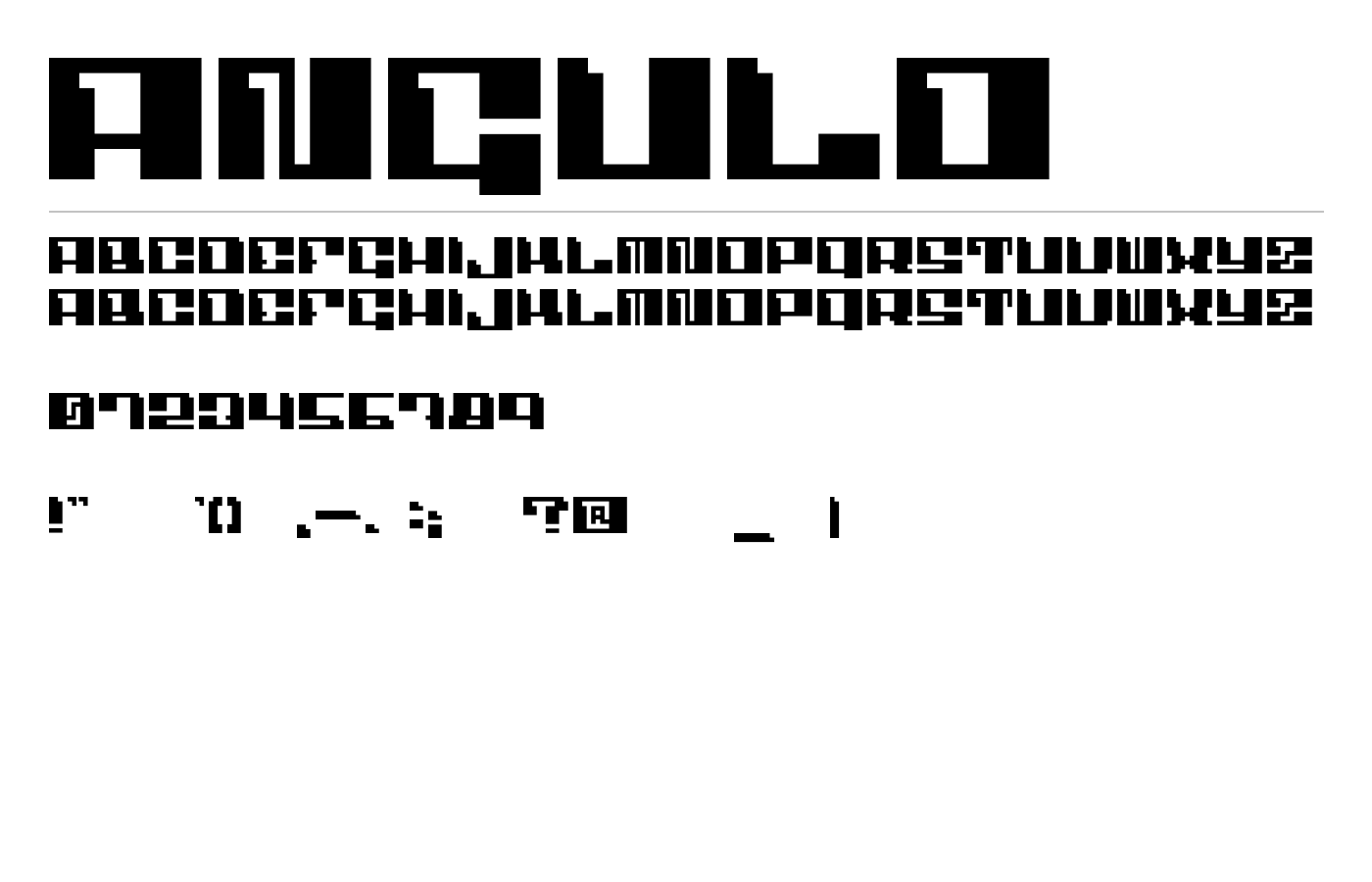
Angulo is a bold, blocky sans serif font with a distinctly geometric, pixelated style, making it perfect for designs that need a strong, digital or retro-futuristic vibe. Its uniform weight and tight spacing create a compact, impactful look that’s ideal for logos, headlines, and posters where attention-grabbing clarity is key. This font works well for modern tech brands, video game graphics, and creative projects seeking a unique and edgy appearance.
Angulo Font
About Angulo Font